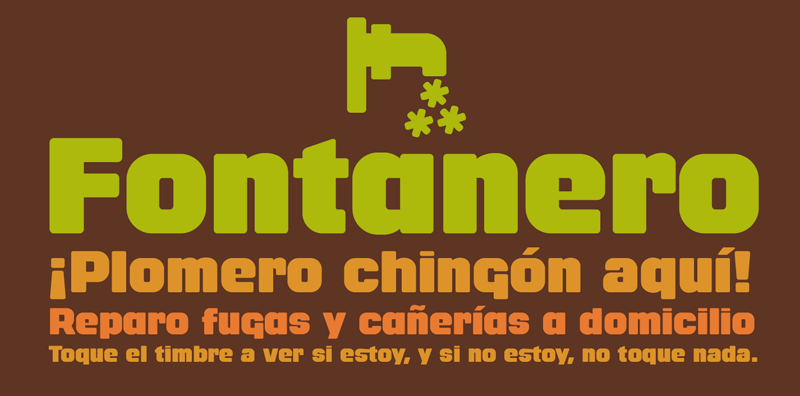
Font name: | Fontanero |
Very thick font Sans of square proportions and rounded antlers, is a very compact typeface thanks to the ascending shorts. My commitment to geometric drawing and the mathematical sequences related to the golden number has led me to the construction of this new display font. Includes the bitcoin symbol: b # ========================================= FULL VERSION & COMMERCIAL LICENSE: https://defharo.com/fonts/fontanero-display-sans/ |